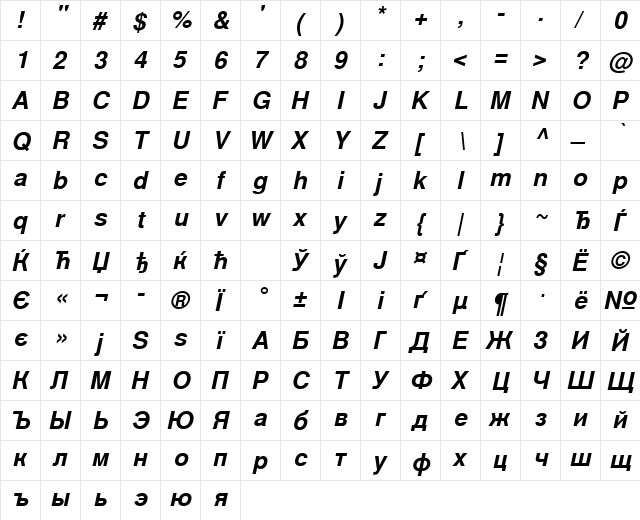
NimbusSanLCY Bold Italic Font Preview
Design Context for NimbusSanLCY Typeface
NimbusSanLCY offers clean, dependable letterforms without strong stylistic allegiance, making it a practical choice for designers who need flexibility. Its italic angle brings a sense of urgency and motion to the letterforms. The heavy weight commands attention and anchors typographic hierarchies.
Pro Tip: Try NimbusSanLCY for annotation and caption copy alongside an upright companion — the contrast in angle creates a dynamic but ordered typographic system.